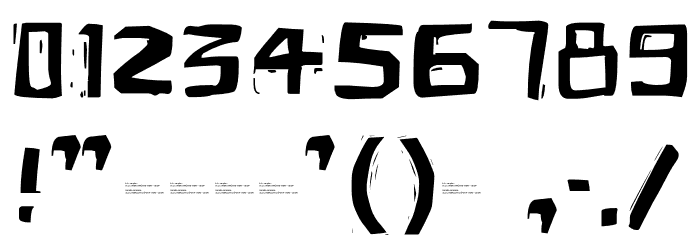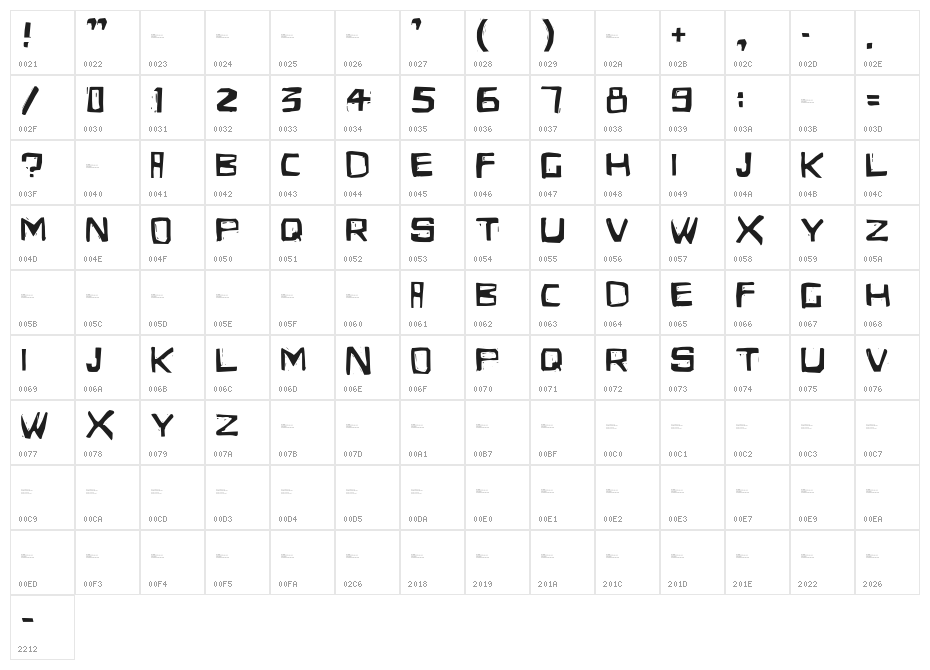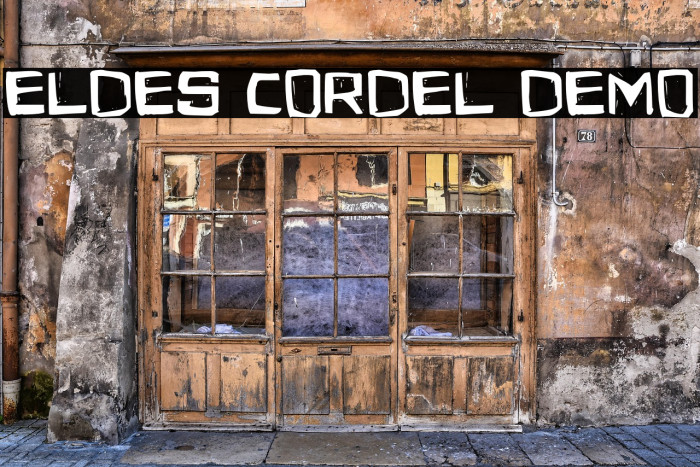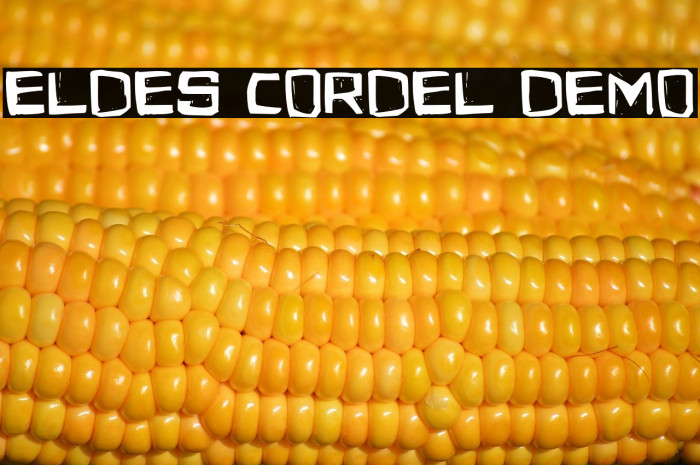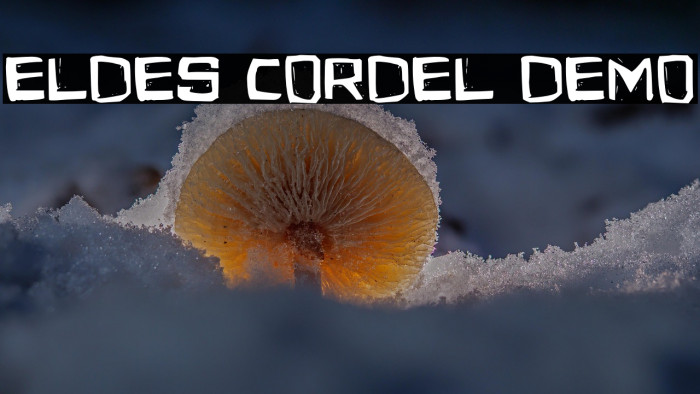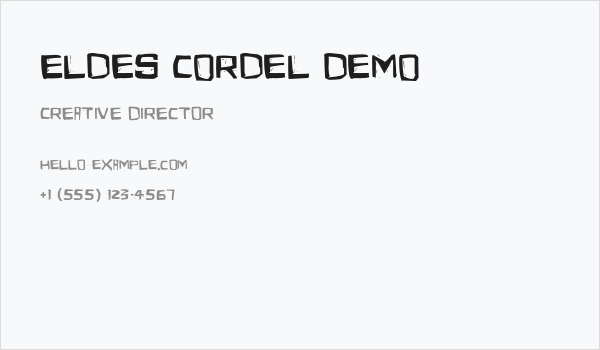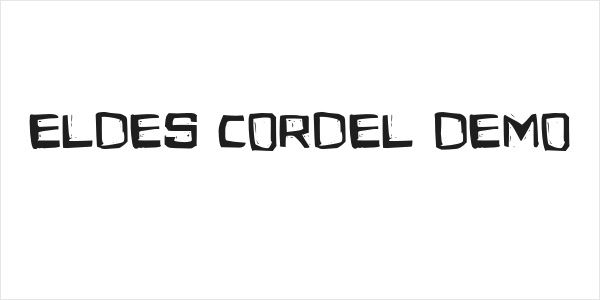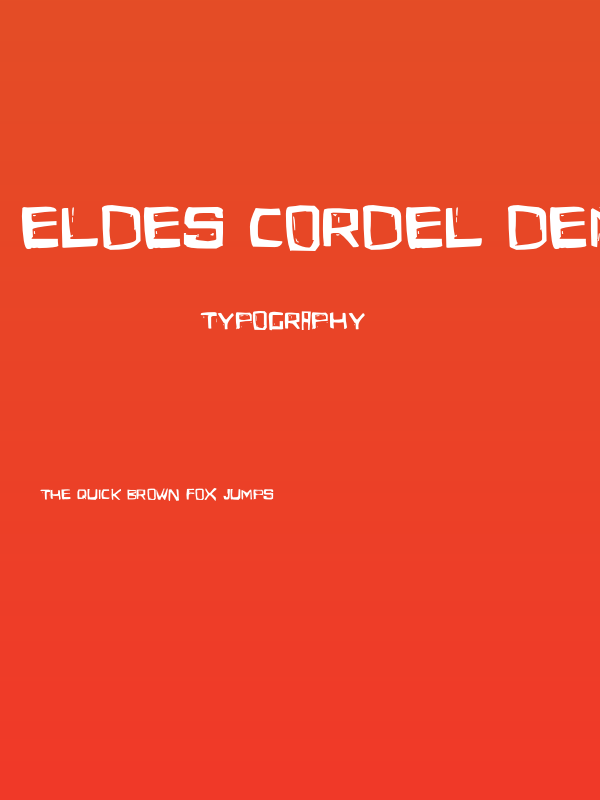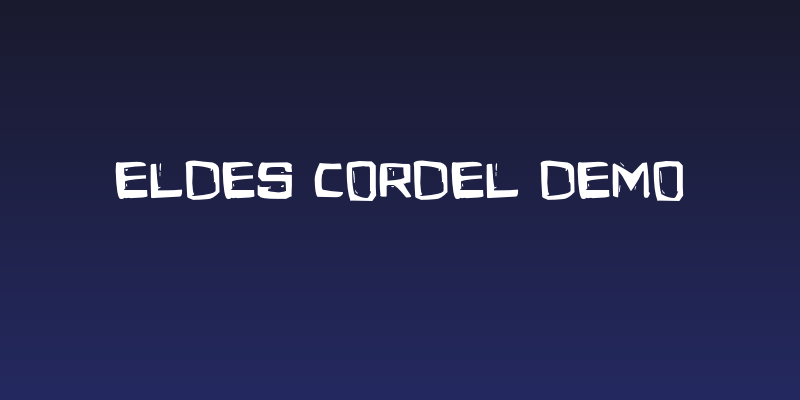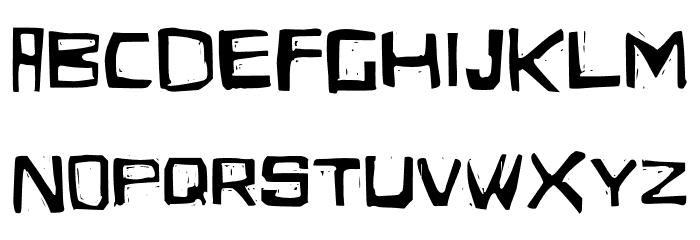
Eldes Cordel Demo Font
Eldes Cordel Demo Description
This font features a bold, hand-drawn aesthetic with a rough, textured appearance that mimics the look of traditional woodblock printing. The characters are slightly irregular, giving them a unique, artisanal feel. The uppercase and lowercase letters maintain a consistent style, with angular lines and a somewhat condensed form. The numbers and special characters follow the same design principles, ensuring a cohesive look across all glyphs. This font's distinctive style is reminiscent of vintage poster art and folk art traditions, making it stand out in any design project.
| Proposed Projects | Ideal for projects that require a rustic or vintage feel, such as posters, book covers, or branding for artisanal products. |